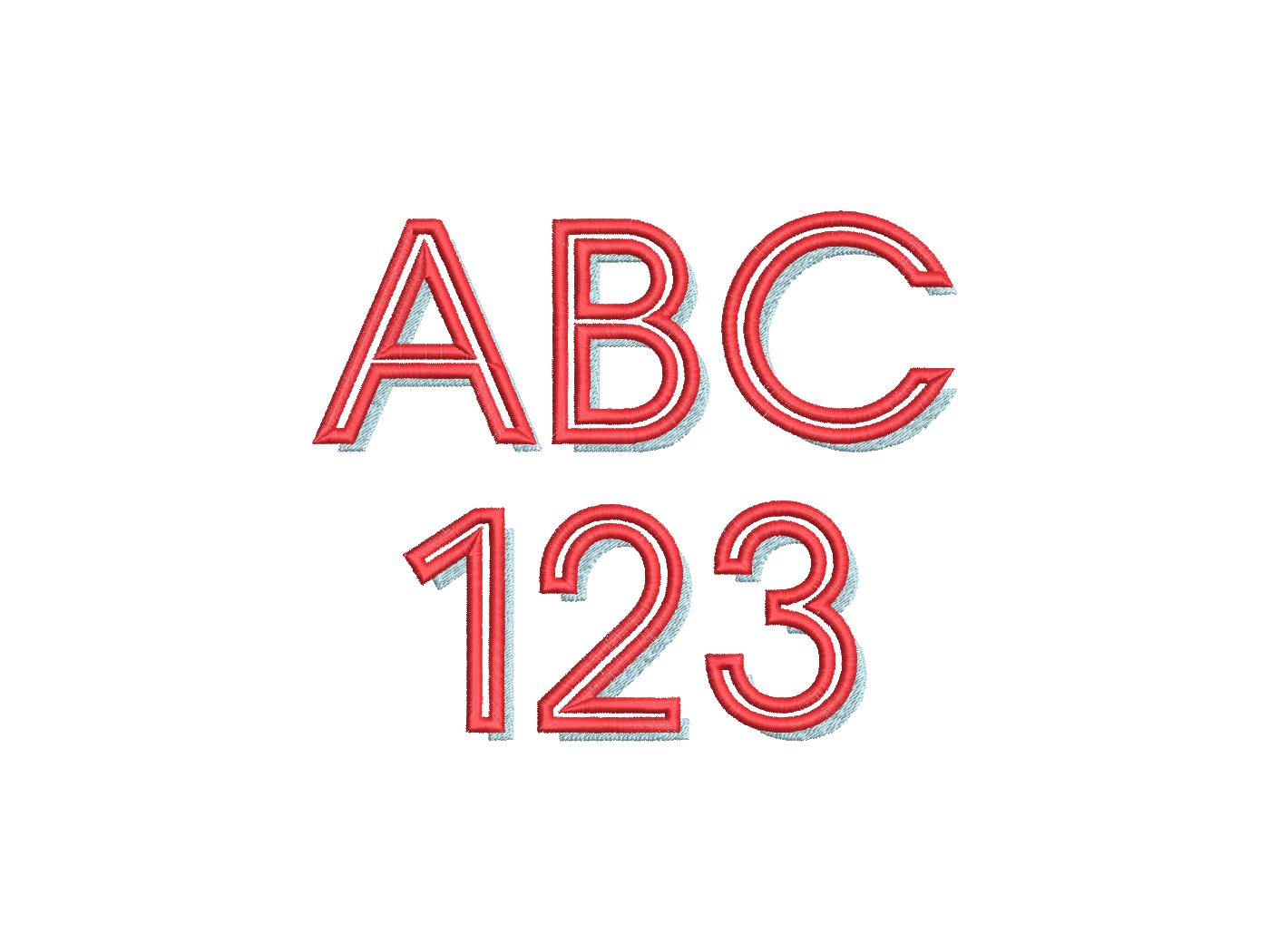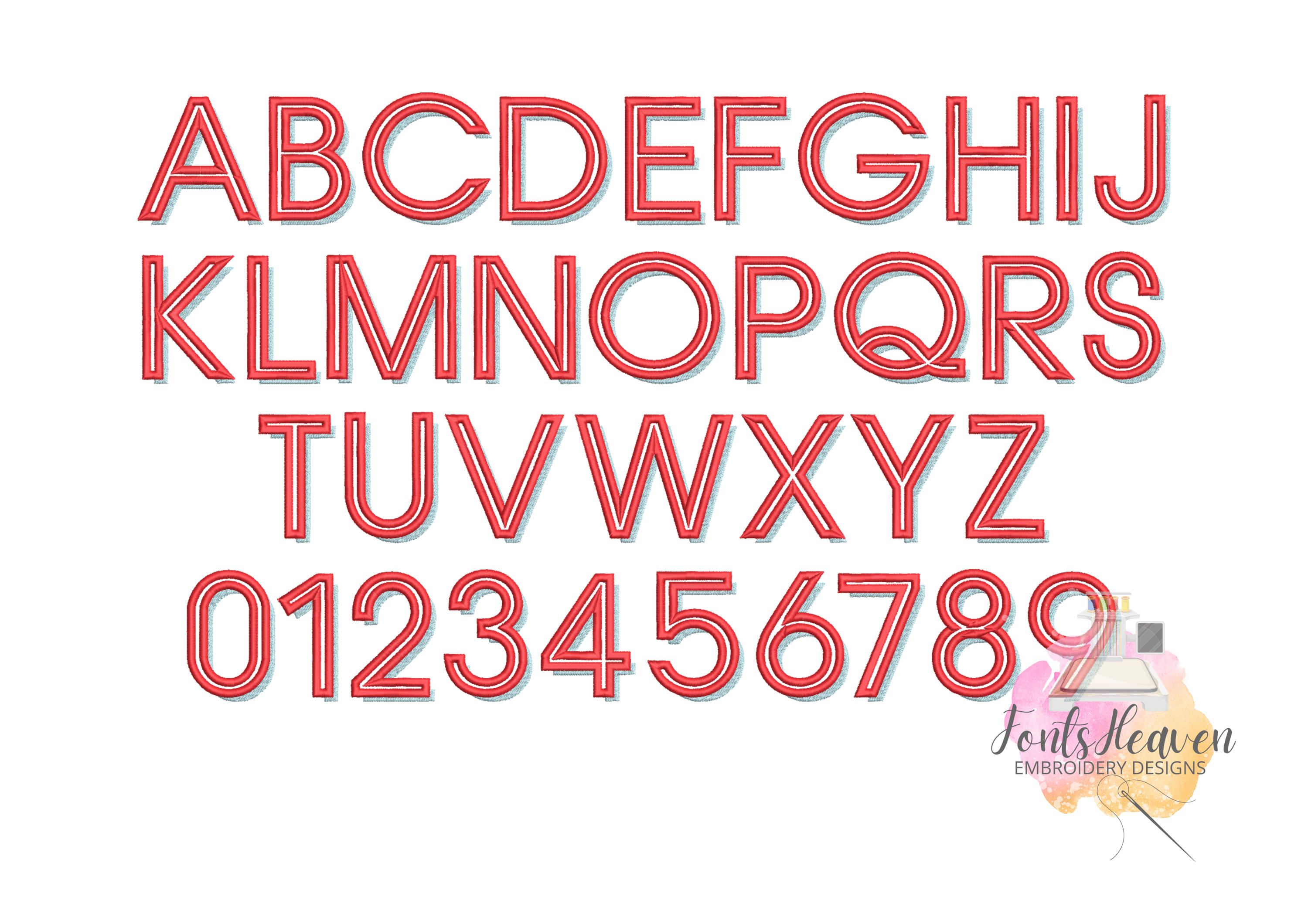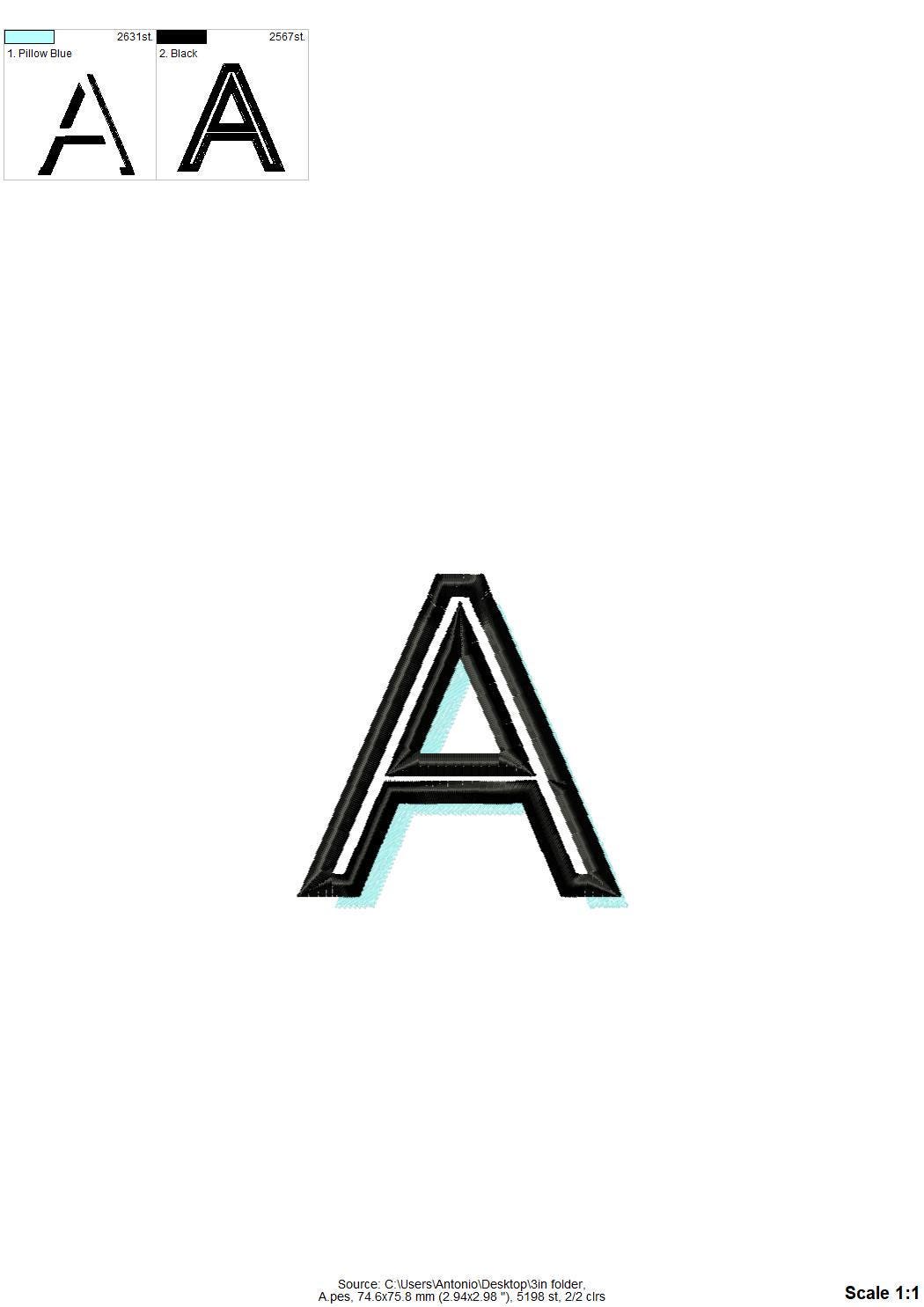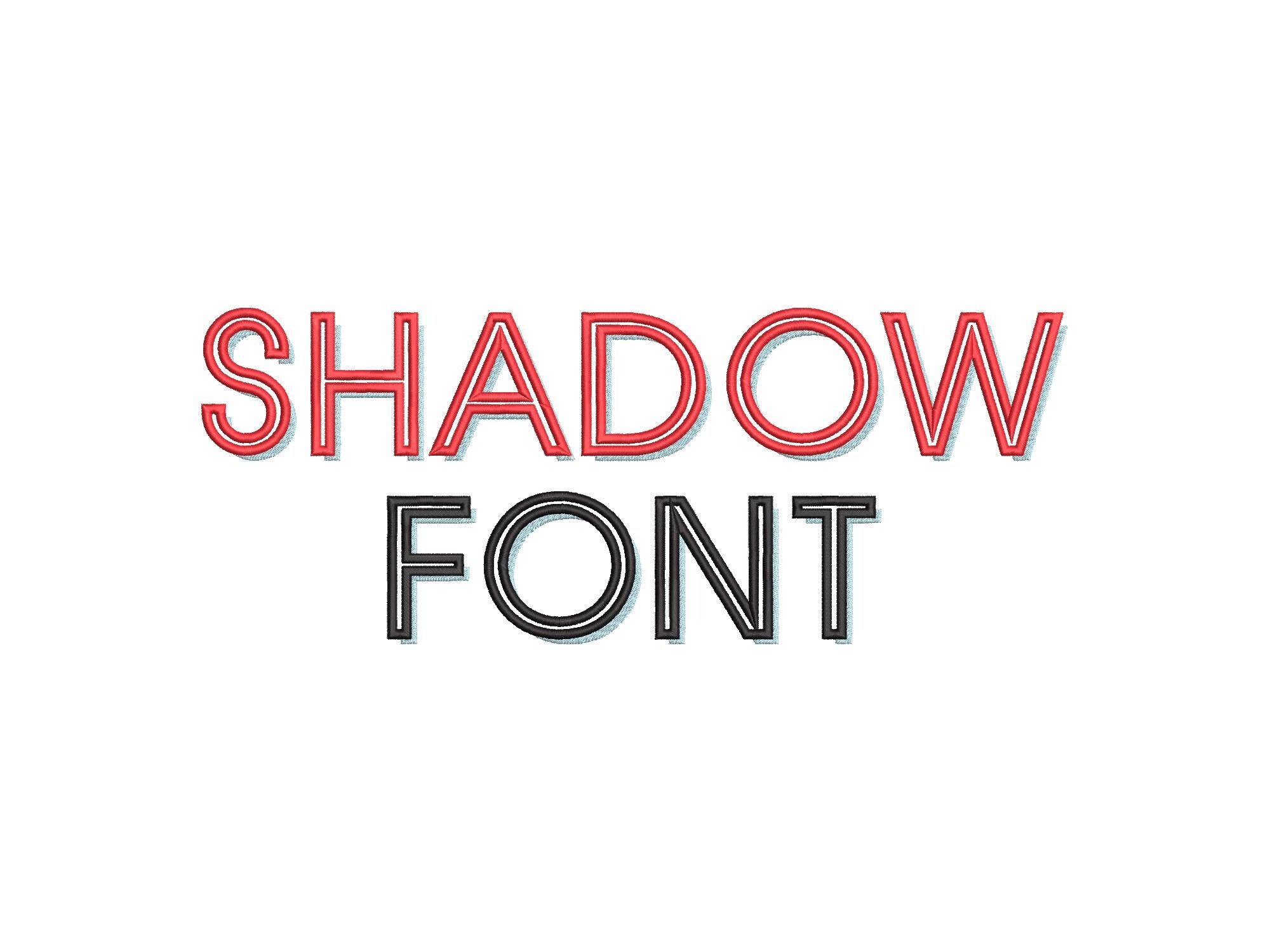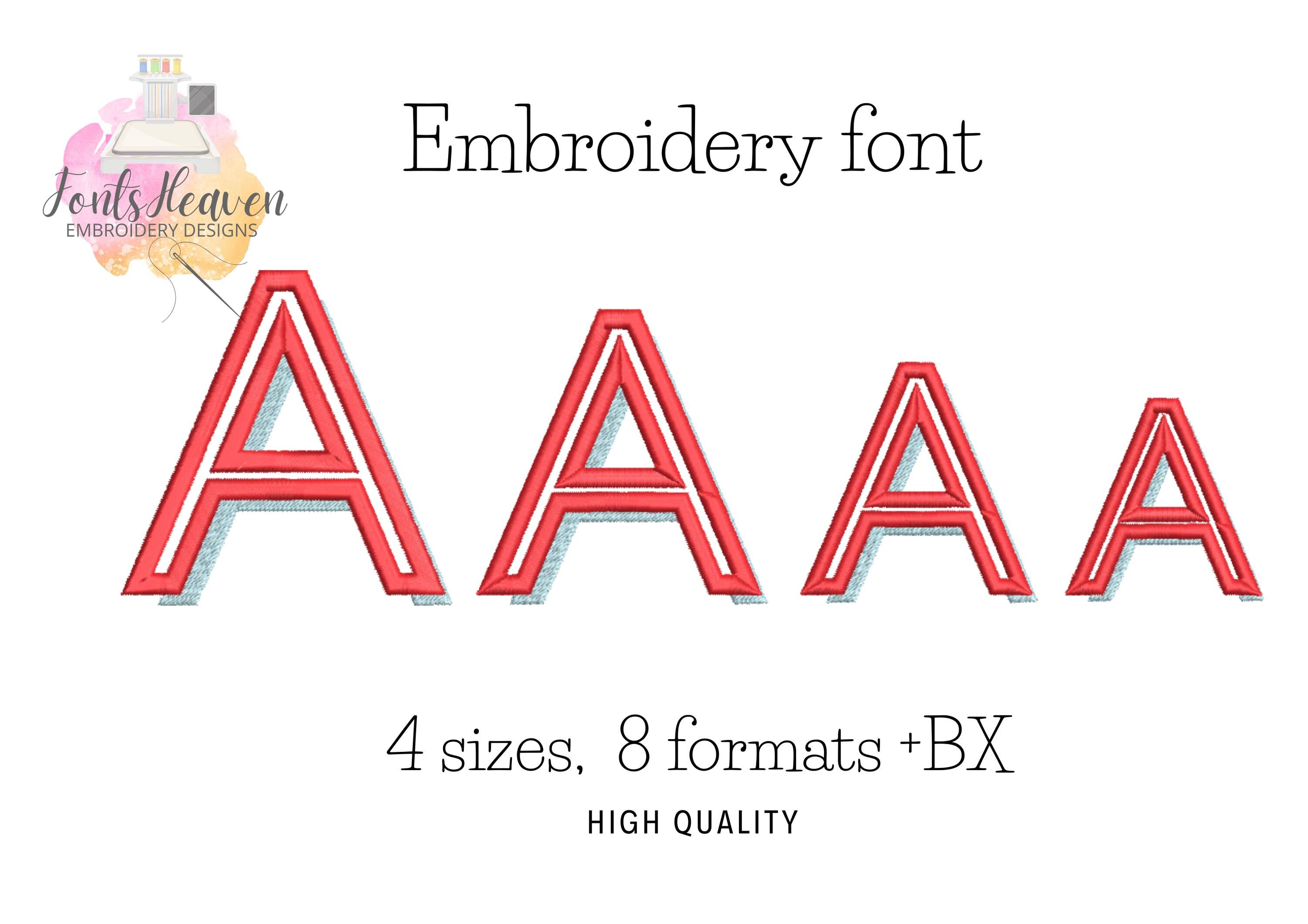
Shadow Athlete Block Font machine embroidery designs satin stitch outline and fill stitch shadow monogram letters numbers sizes 2 to 3.5 inch
Entire alphabet uppercase letters A-Z, and numbers 0-9.
The font has a satin stitch outline and a fill stitch shadow.